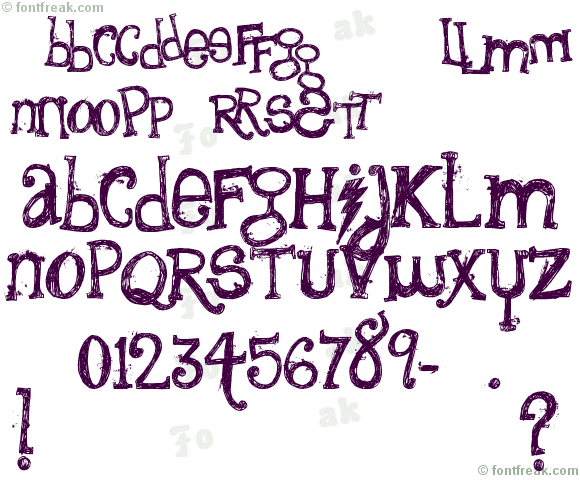
the quiet scream
The Quiet Scream by Gyom Seguin is a unique display font that effortlessly captures attention with its artistic flair and whimsical character. Released in 2007, this freeware typeface combines a playful aesthetic with a slightly chaotic edge, making it an ideal choice for projects that seek to convey creativity and individuality. The font features a distinct hand-drawn quality, characterized by uneven stroke weights and a textured appearance that adds depth and personality to any design. The irregular shapes and decorative elements give it a lively, spontaneous vibe, making it stand out in a crowded typographic landscape.
This font is best suited for various applications that benefit from its bold and expressive style. It works beautifully for wedding invitations, where its unique charm can create an inviting atmosphere. Movie posters can also benefit from the font's dramatic flair, helping to convey the film's tone and theme effectively. Additionally, restaurant menus, especially for trendy or eclectic dining establishments, can utilize The Quiet Scream to capture attention and enhance the overall dining experience. Content creators looking to make their social media graphics pop will find this font to be a fantastic choice as well.
Targeted at graphic designers, small business owners, and content creators, The Quiet Scream is more than just a typeface; it’s a statement. Its quirky, artistic design resonates with those who wish to break away from conventional fonts and express a more personal touch in their work. The quiet scream font free download offers a valuable resource for anyone looking to inject creativity into their projects. With its distinctive style and versatility, this font stands out as a remarkable choice for anyone aiming to leave a lasting impression.